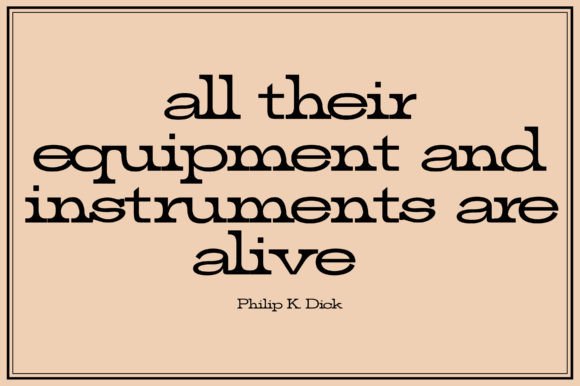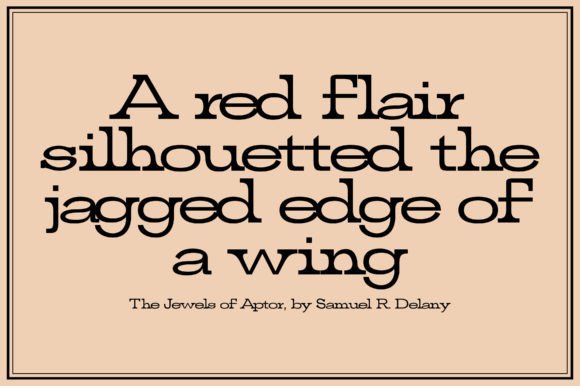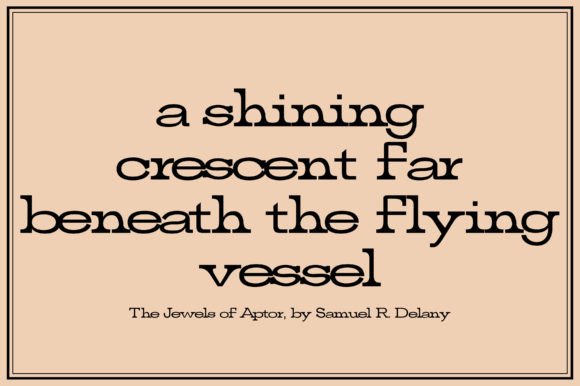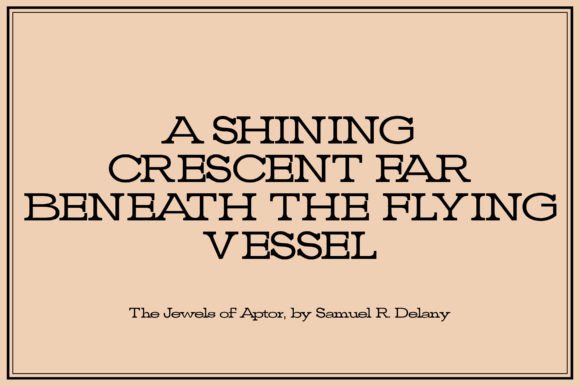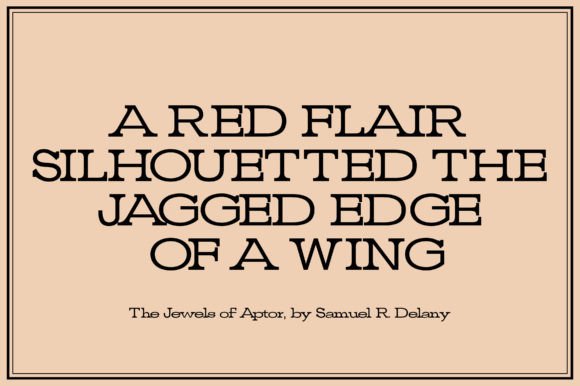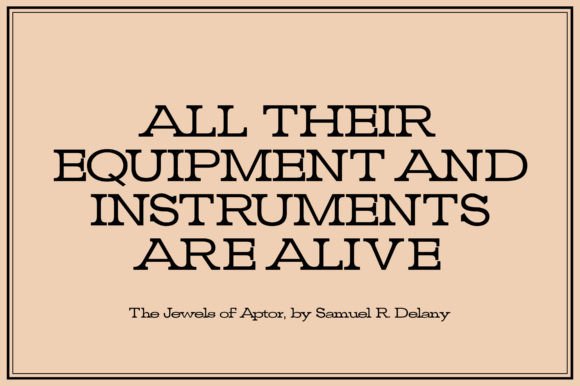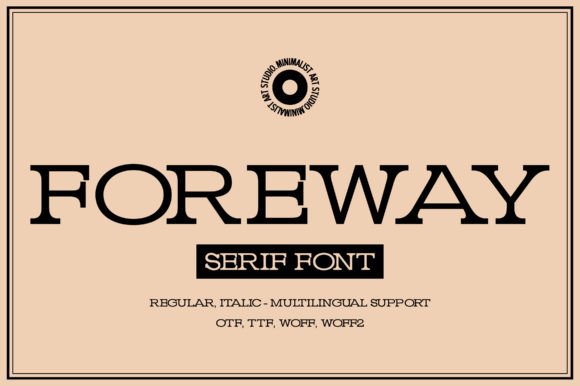
Introducing Foreway Font: Elevate Your Designs with Elegance and Sophistication
In the world of design, typography plays a crucial role in conveying messages, expressing creativity, and capturing the audience’s attention. Among the numerous fonts available, Foreway Font stands out as a beacon of elegance and sophistication. This serif font is meticulously crafted to help designers and crafters create unique and eye-catching designs that leave a lasting impression. Whether you’re working on print or digital media, Foreway is the ultimate font for those who want to stand out from the crowd.
Unparalleled Versatility: Suitable for Various Design Projects
Foreway Font is incredibly versatile, making it an excellent choice for a wide range of design projects. From logos and branding materials to packaging and advertising, this font can elevate your designs to new heights. Its classic serif structure exudes a sense of tradition and reliability, while its elegant lines and curves add a touch of sophistication and luxury.
Key Features of Foreway Font
- Elegant Serif Structure: Foreway’s serif structure is both classic and refined, making it perfect for designs that require a touch of sophistication.
- Unique Character: Each letter in Foreway has a distinct character that sets it apart from other serif fonts, ensuring your designs stand out.
- High Readability: Despite its elegant appearance, Foreway maintains high readability, making it suitable for both print and digital media.
- Wide Range of Applications: From logos and branding to packaging and advertising, Foreway can be used in various design projects.
Foreway Font offers numerous benefits for designers and crafters looking to create stunning designs. Some of the key advantages include:
- Enhanced Creativity: With Foreway, you can experiment with different design concepts and ideas, pushing the boundaries of your creativity.
- Professional Look: The font’s elegant and sophisticated appearance can instantly give your designs a professional look, making them more engaging and effective.
- Time-Saving: Foreway’s versatility and readability save you time and effort, as you can use it across various design projects without worrying about legibility or aesthetics.
- Unique Designs: By using Foreway, you can create unique and eye-catching designs that capture the audience’s attention and leave a lasting impression.
Tips for Using Foreway Font Effectively
To make the most of Foreway Font, consider the following tips:
- Pair with Complementary Fonts: Combine Foreway with sans-serif fonts or script fonts to create visually appealing contrast and add depth to your designs.
- Experiment with Colors: Try Foreway with different colors to find the perfect combination that matches your brand’s identity or design theme.
- Adjust Font Sizes: Play with font sizes to create visual hierarchy and emphasize important information in your designs.
- Use in Combination with Images: Pair Foreway with high-quality images to create stunning visuals that capture the audience’s attention.
Foreway Font is an exceptional serif font that can elevate your designs to new heights. Its elegant and sophisticated appearance, versatility, and high readability make it an excellent choice for designers and crafters. Whether you’re working on print or digital media, Foreway is the ultimate font for those who want to stand out from the crowd. With its unique character and wide range of applications, Foreway is sure to become a staple in your design toolkit.